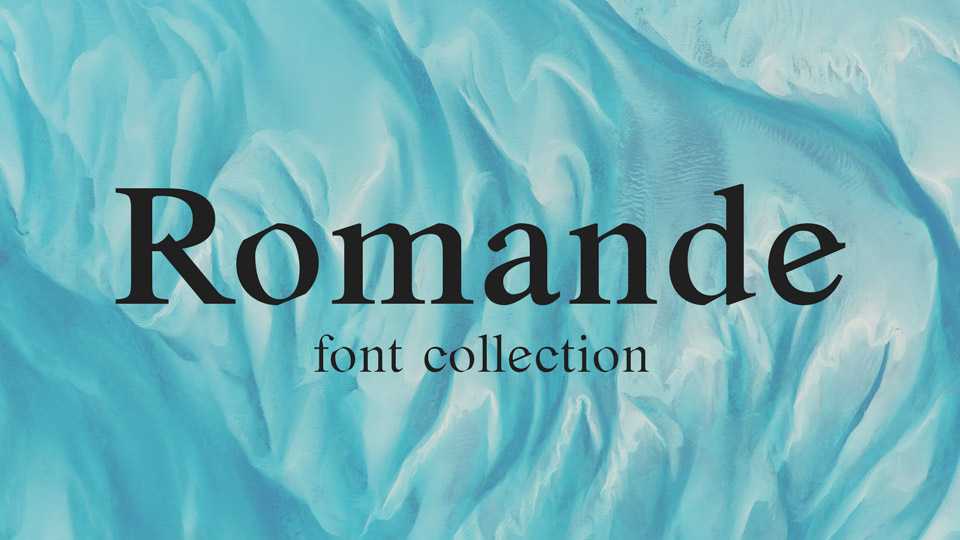
Download Romande typeface, a collection of serif fonts, inspired by the Times, Caslon and Tiffany. Romande is suitable for text and titling in all elegant and stylish publications.
Designer: Arkandis Digital Foundry